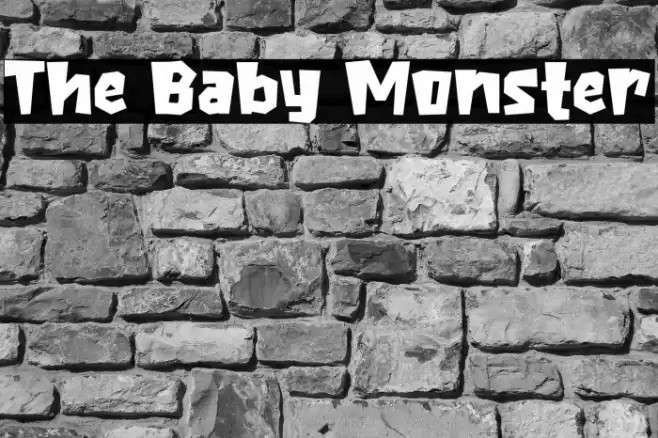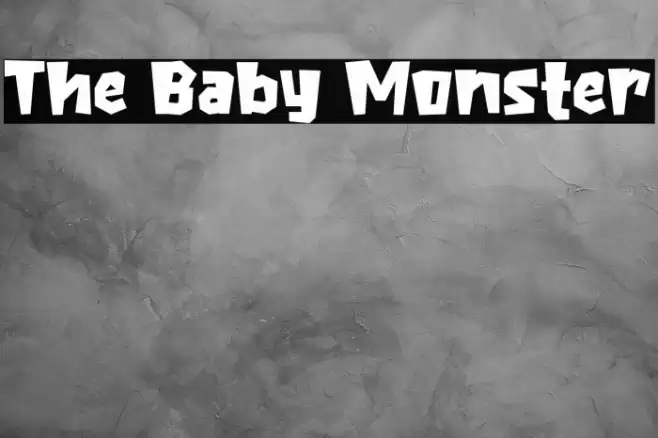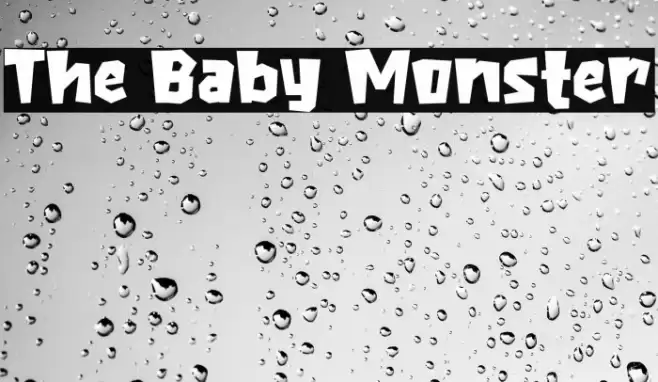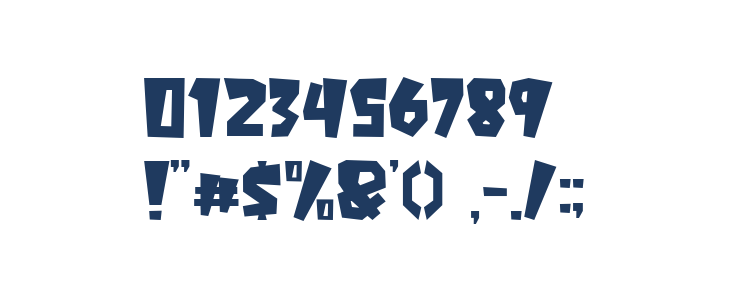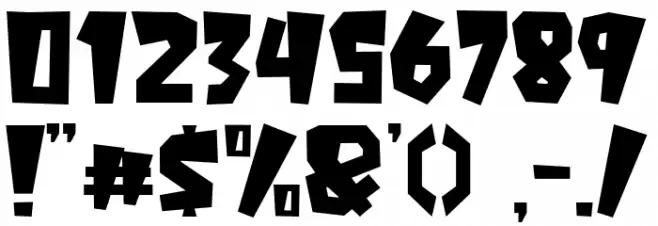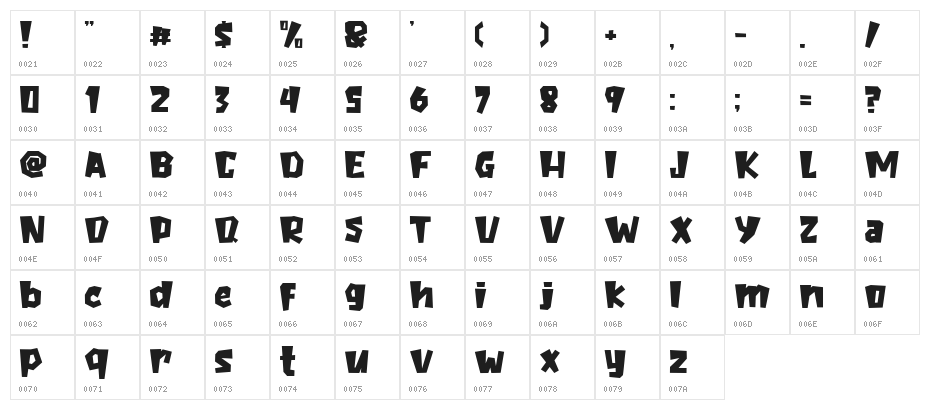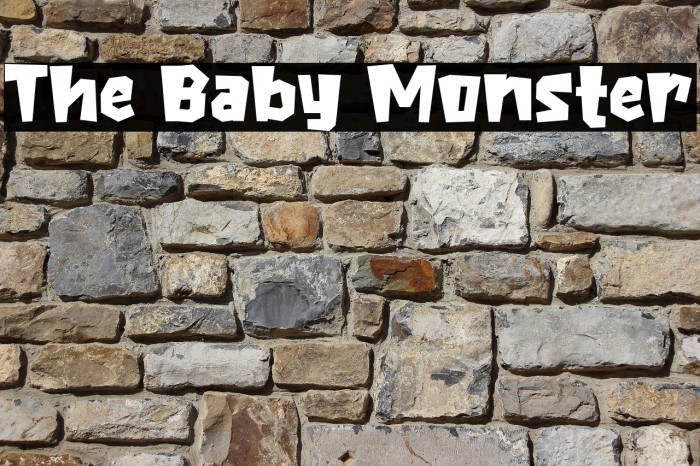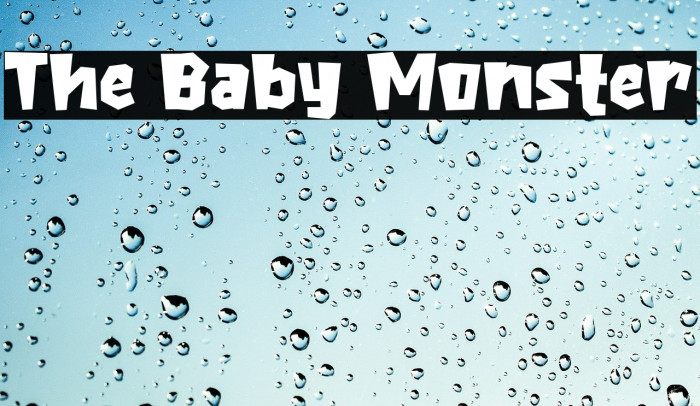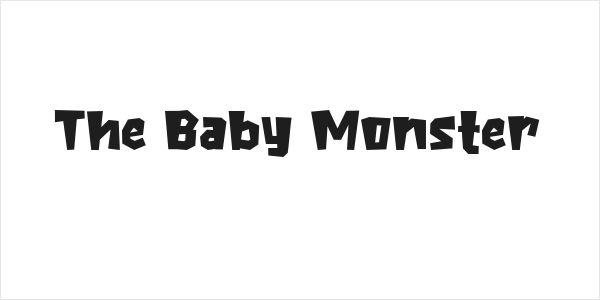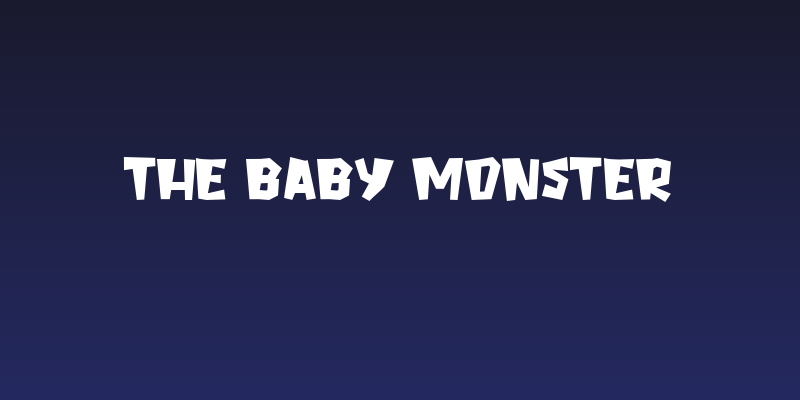
The Baby Monster Font
The Baby Monster Description
This font features a bold and playful design with a distinctly jagged and irregular appearance. Each character is crafted with sharp angles and varying line thickness, giving it a dynamic and energetic feel. The uppercase and lowercase letters maintain a consistent style, while the numbers and special characters complement the overall aesthetic. The font's unique and quirky style makes it stand out, perfect for projects that require a fun and unconventional look.
A bold, jagged font with a playful and energetic style from Cartoon fonts.
- Font: The Baby Monster
- Proposed Projects: Ideal for children's book covers, playful posters, Halloween-themed designs, and eye-catching headlines.
- Overall Style: Playful, Energetic, Quirky
- Use Case: Headlines, Posters, Themed Events